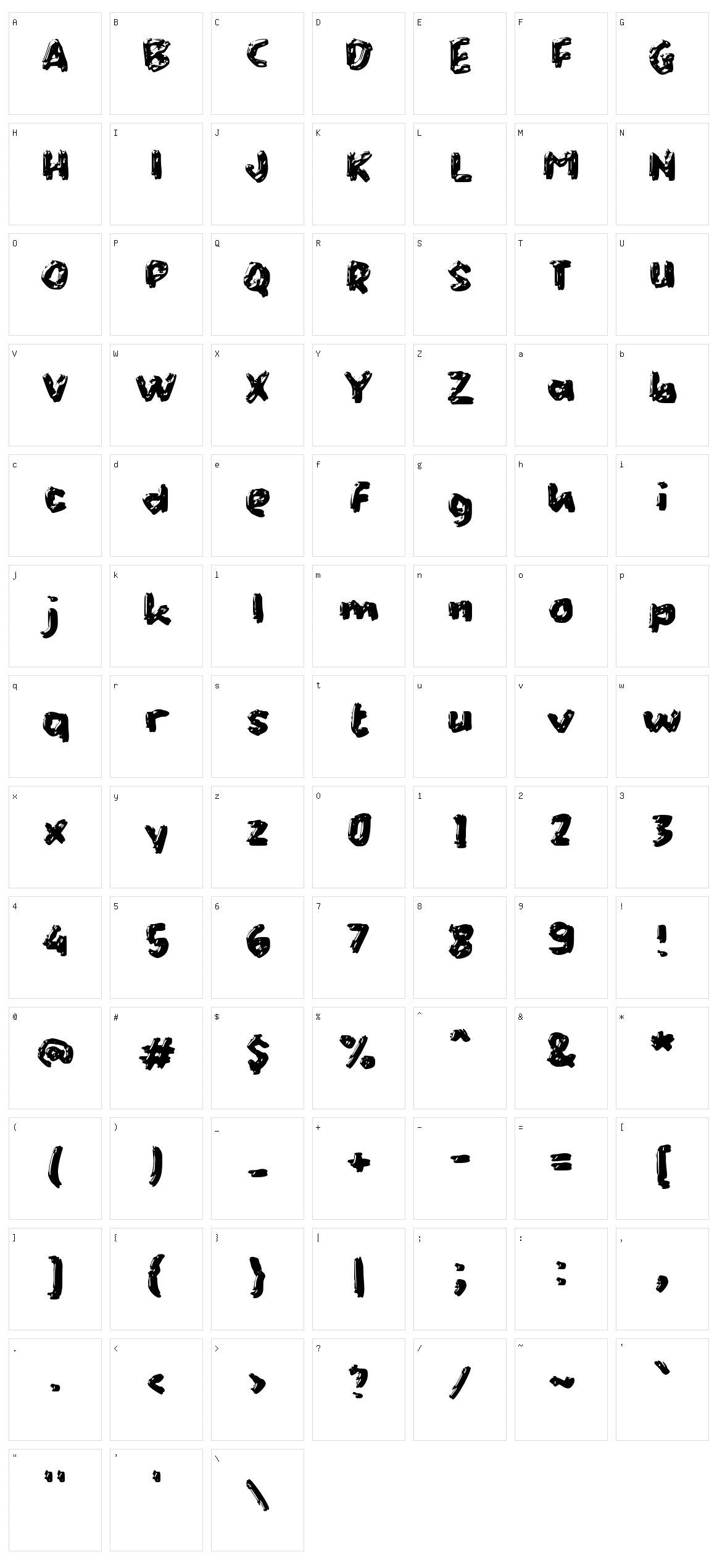
The free font e Eyao is carefully designed by wep, showcasing a thoughtful balance of creativity and usability and falls under the Eroded font style. When you download the ZIP file, it contains only 44.89 KB of font files, making it lightweight and quick to download. Please review the license details below to understand permitted usage and distribution rights. If license information is not available, we recommend using this font for personal projects only or contacting the author directly for commercial usage permissions.